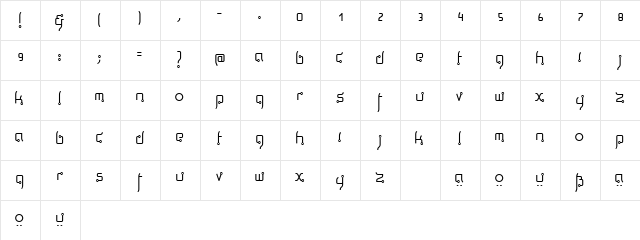
Thaiga Thin Free Font
Thaiga Thin
Style: Thin
Design Context for Thaiga
Thaiga is a composed and adaptable typeface that performs quietly and consistently across a wide range of design contexts. Its slender proportions lend an understated elegance to any composition.